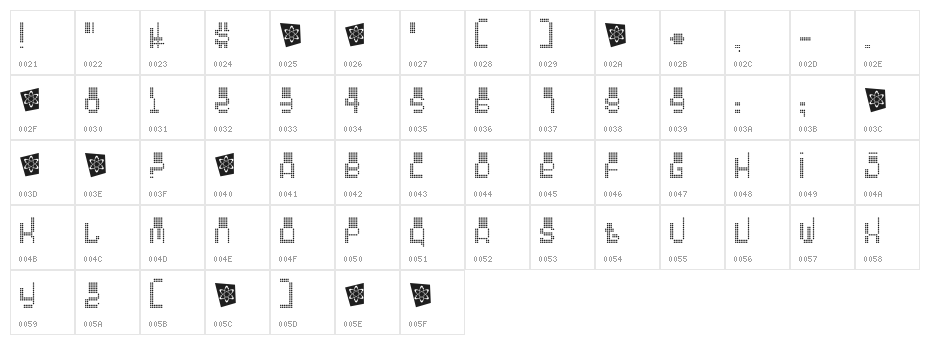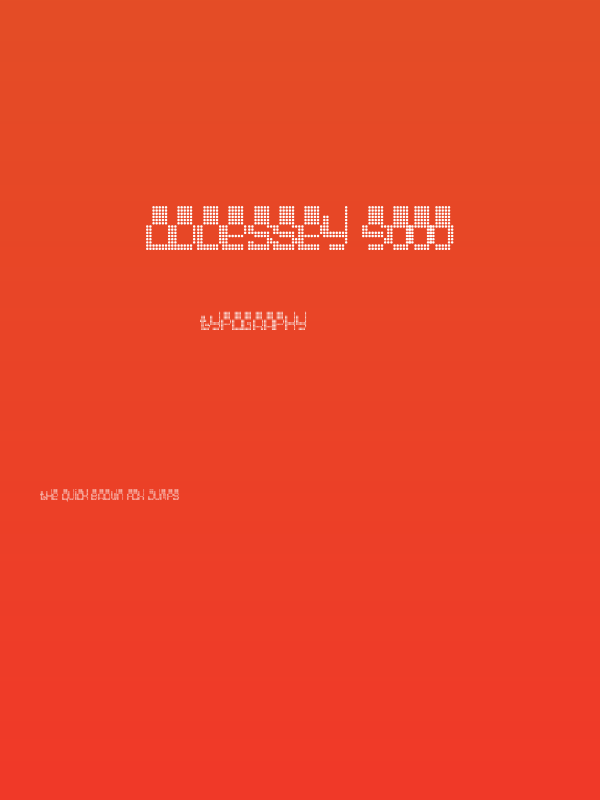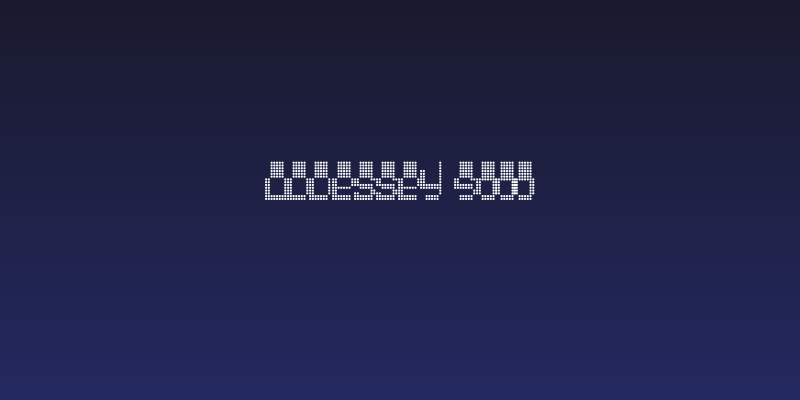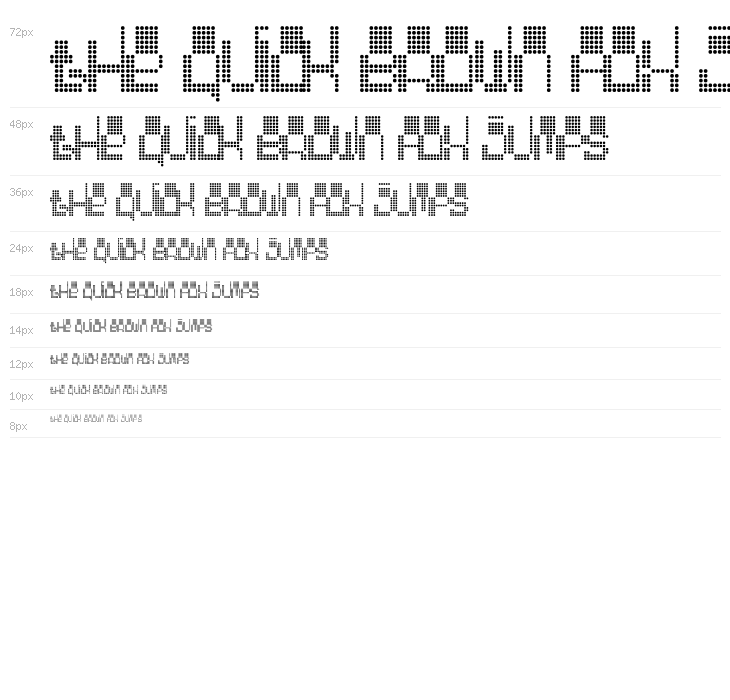
Oddessey 5000 Font
Oddessey 5000 Description
This font is a unique and futuristic design composed entirely of small, evenly spaced dots forming each character. The geometric arrangement of dots creates a digital and modern aesthetic, reminiscent of early computer displays or LED signage. Each letter and number is constructed with precision, maintaining uniformity in size and spacing, which gives it a cohesive and structured appearance. The font includes both uppercase and lowercase letters, numerals, and a selection of special characters, all adhering to the dot matrix style. Its distinct look makes it ideal for projects that require a tech-savvy or retro-futuristic vibe.
| Use Case | Headlines, Logos, Digital displays |
| Proposed Projects | Ideal for digital displays, tech-themed posters, retro-futuristic designs, and sci-fi projects. |